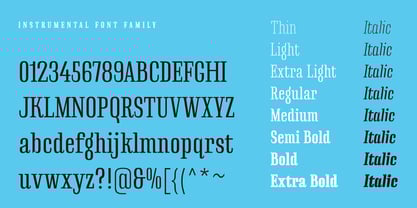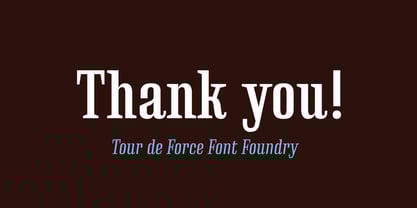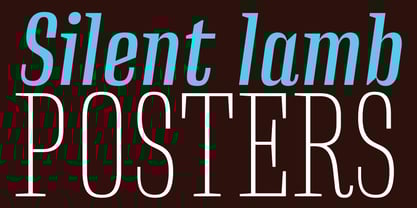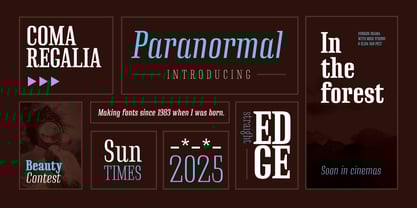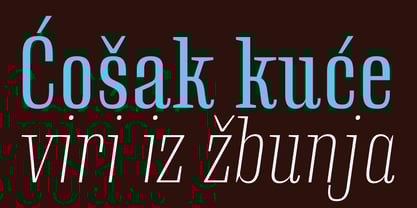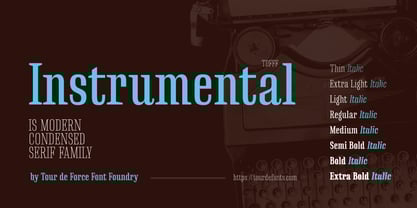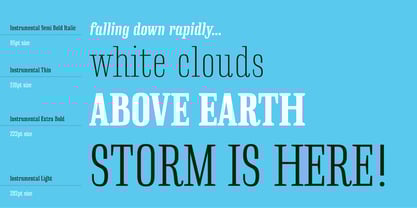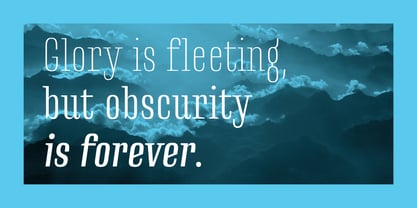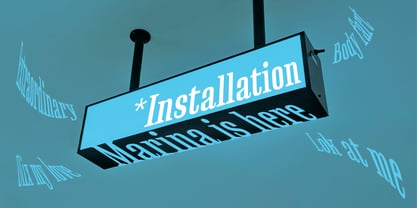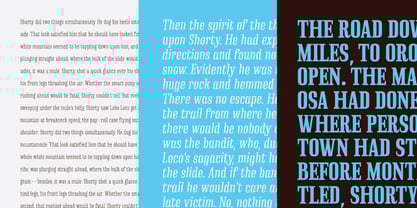
Instrumental
by Tour De Force
The Instrumental Font Family was designed by Dusan Jelesijevic and published by Tour De Force. Instrumental contains 16 styles and family package options.
Instrumental is condensed serif font family that comes in 16 styles – 8 weights and 8 Italics.
Compact, well balanced letter shapes are designed with increasing stem contrast – as weights goes heavier, contrast does it also. Design gives impression of certain vintage influences combined with modern design elements. All together, Instrumental packs paragraphs and text lines pretty nicely, giving text a dose of harmony and easiness of reading.
As its name suggest, Instrumental is prepared to fight with different kind of projects – we delivered the music, you deliver a words.
Contains Extended Latin character map coverage with standard ligatures as OpenType feature.